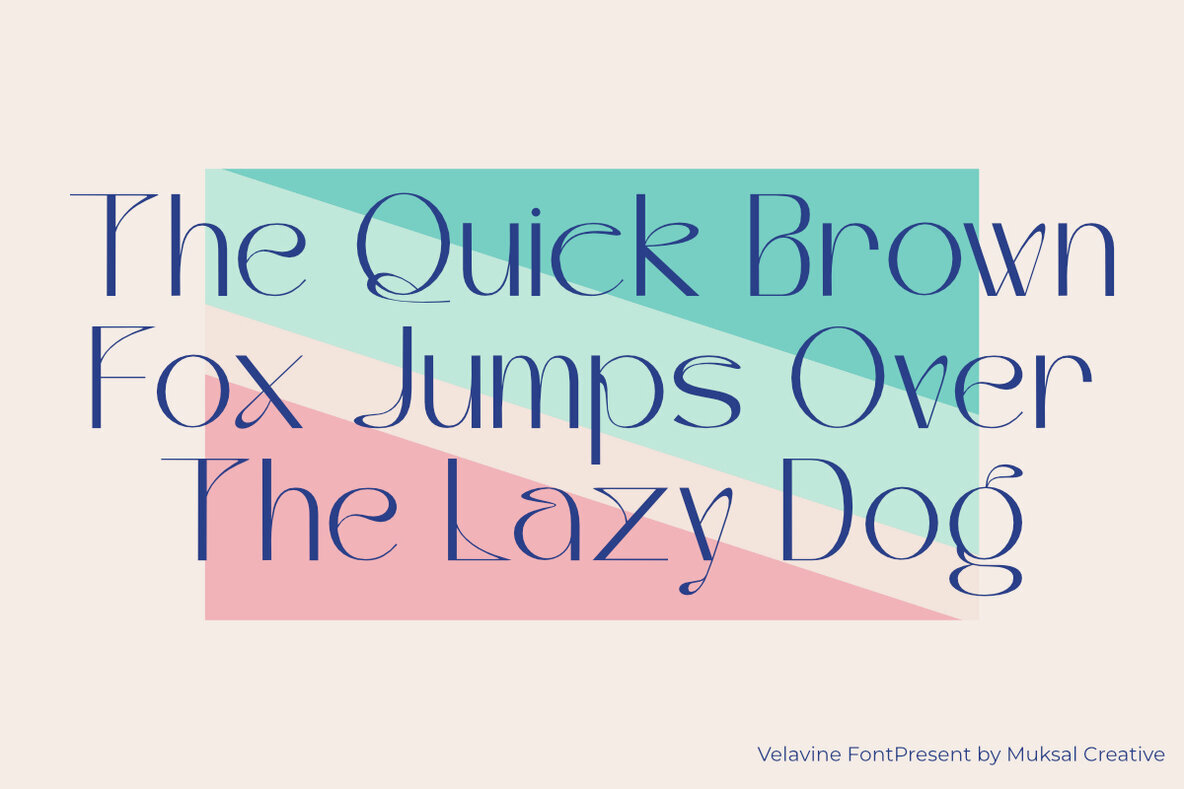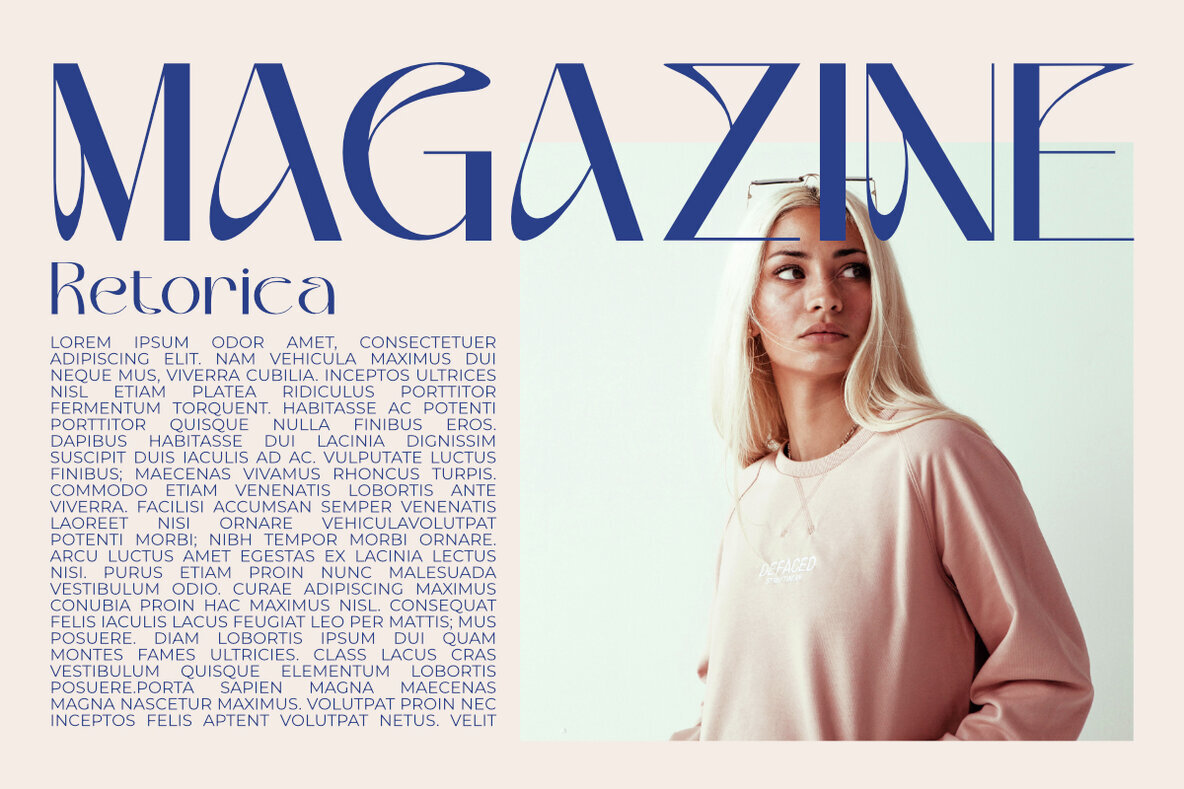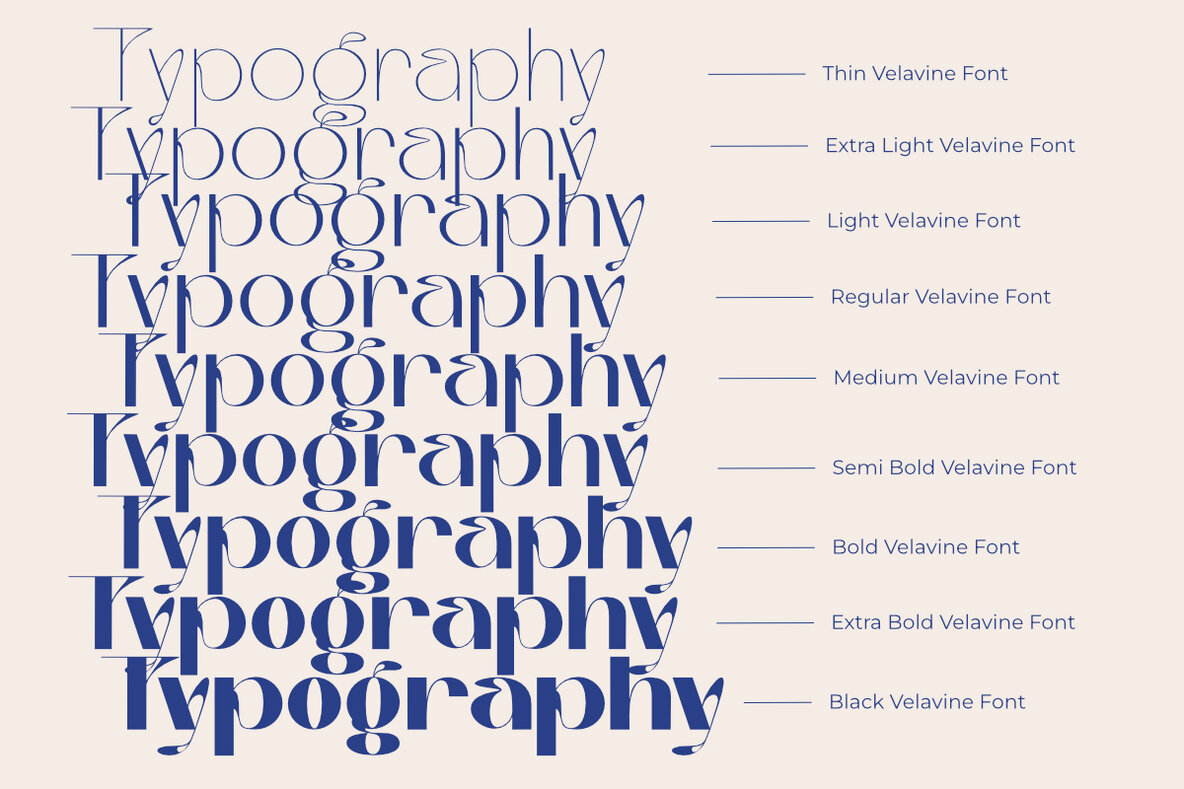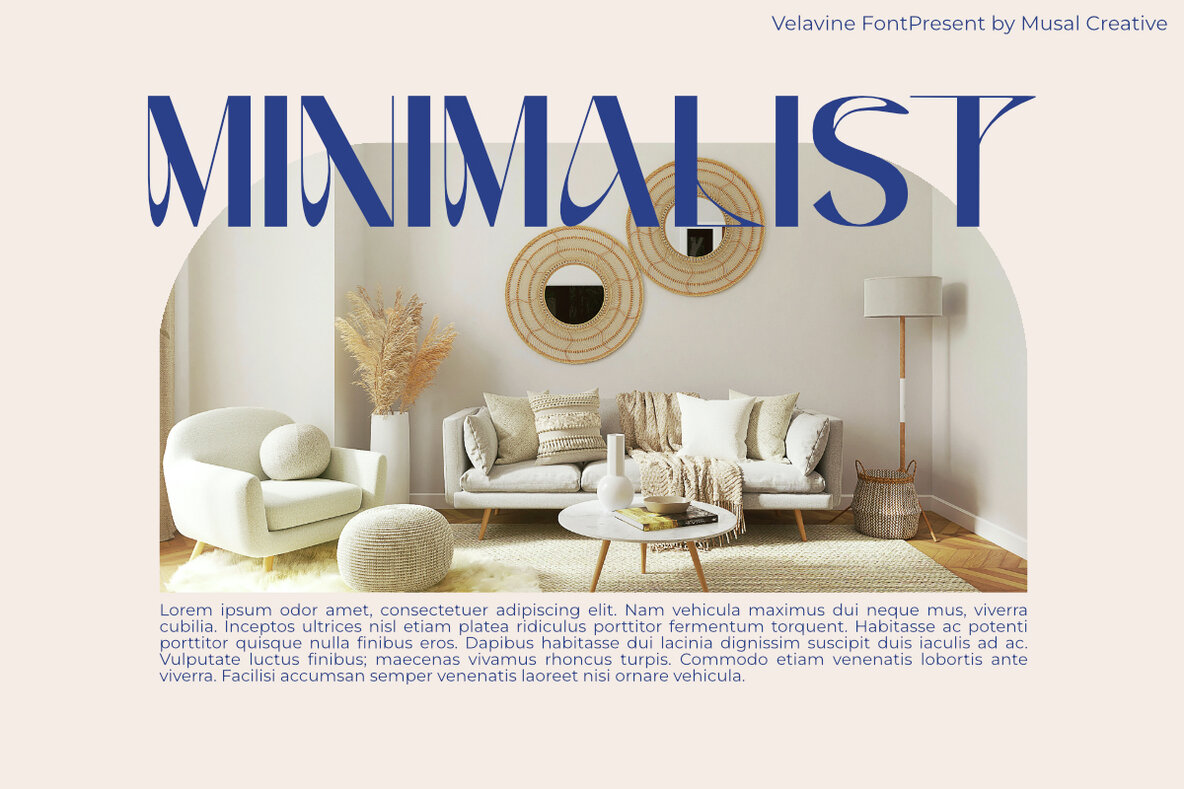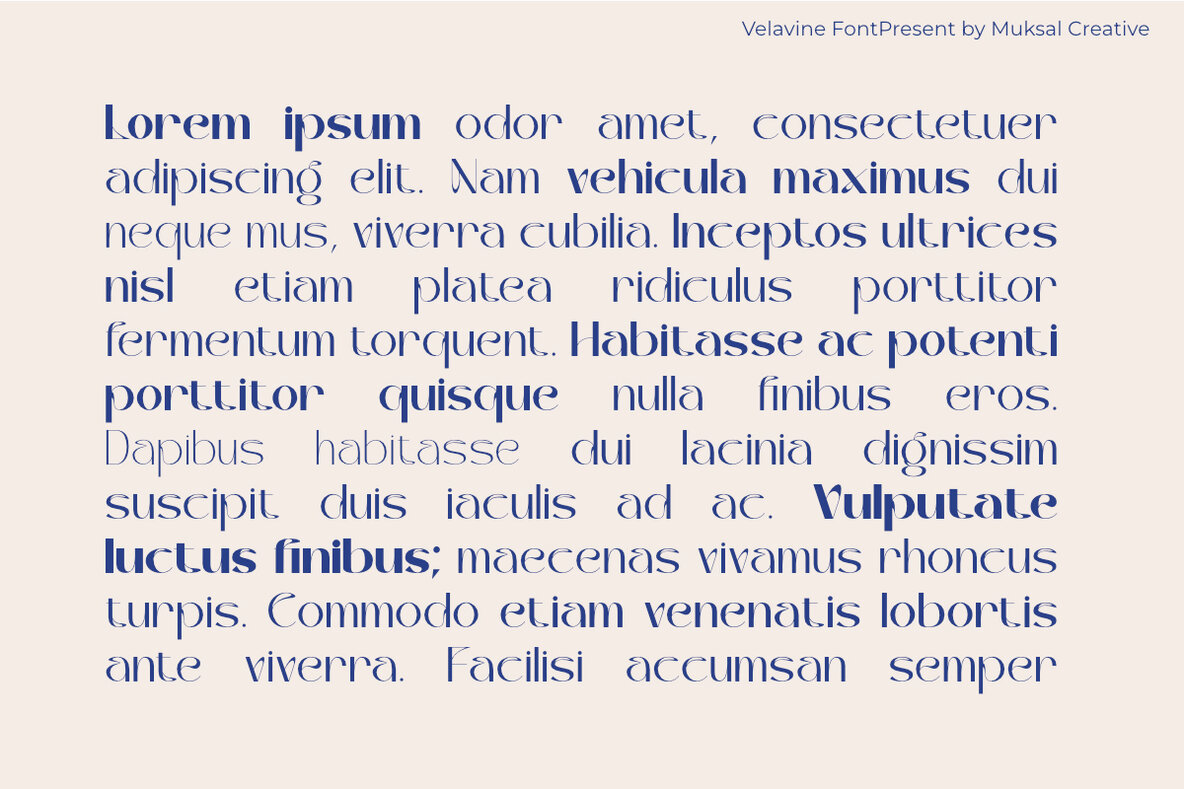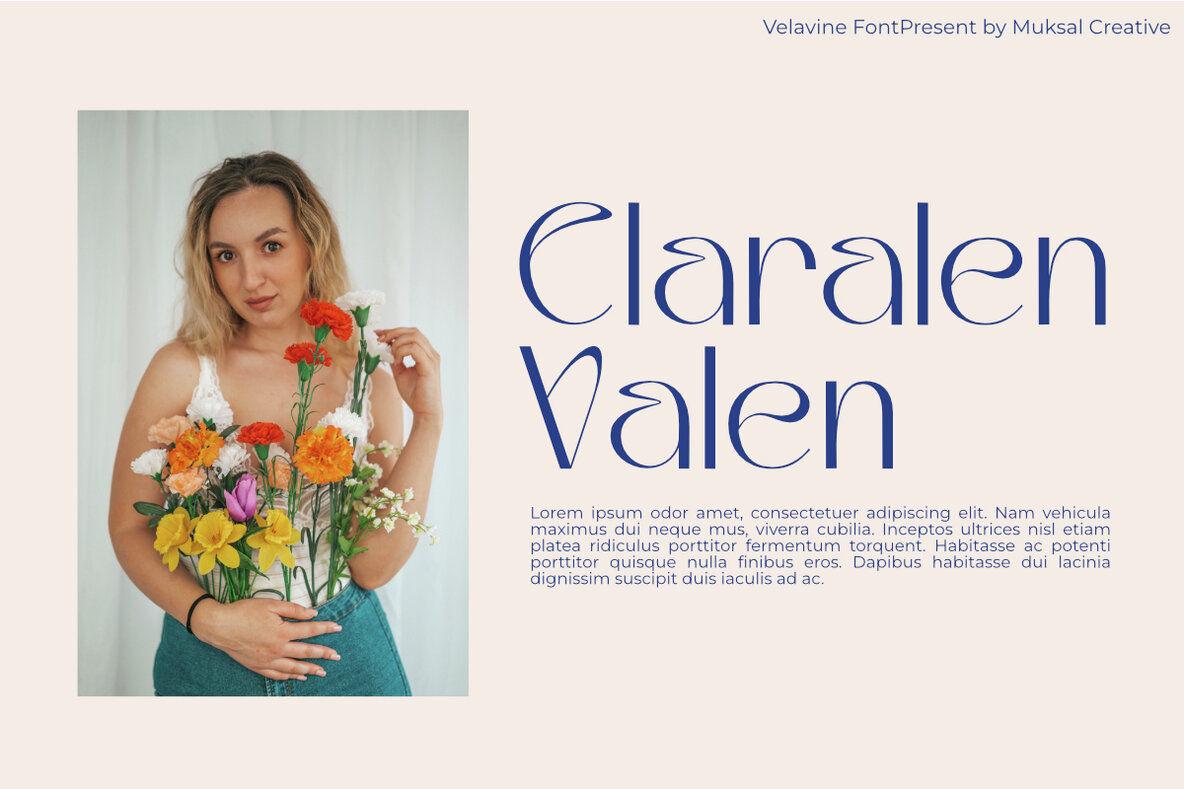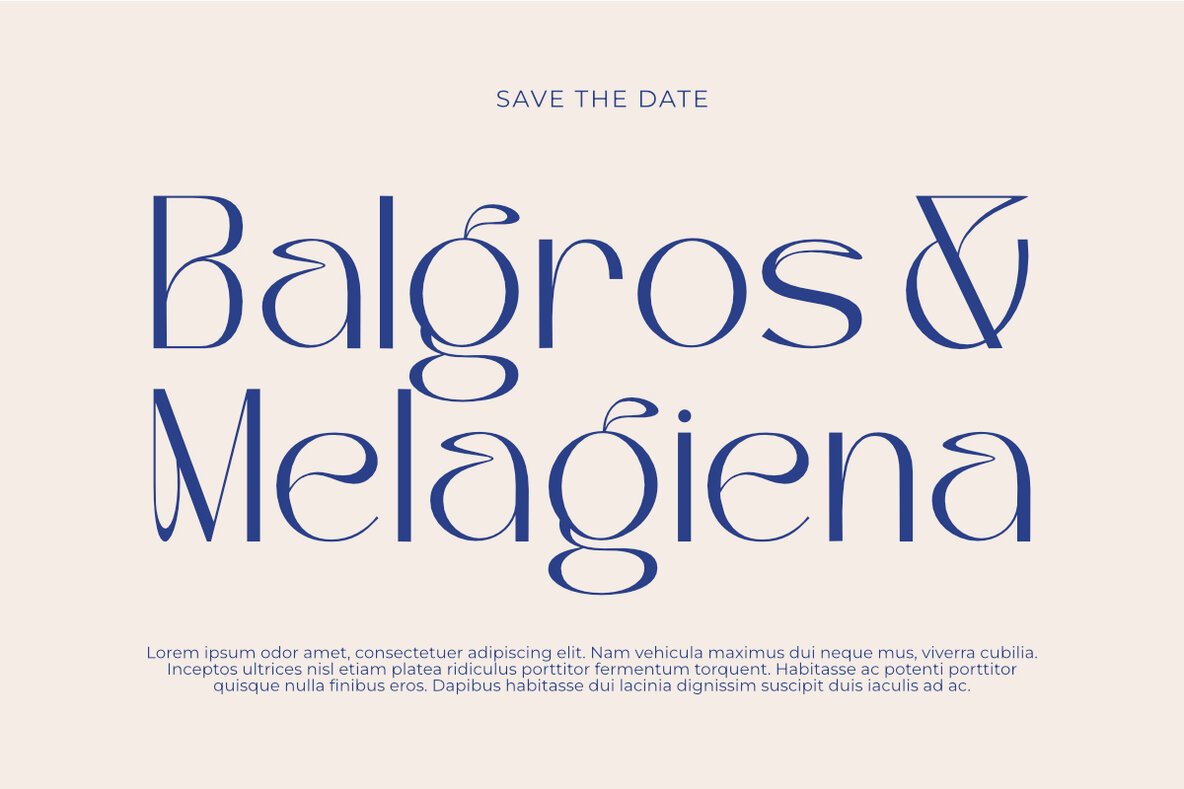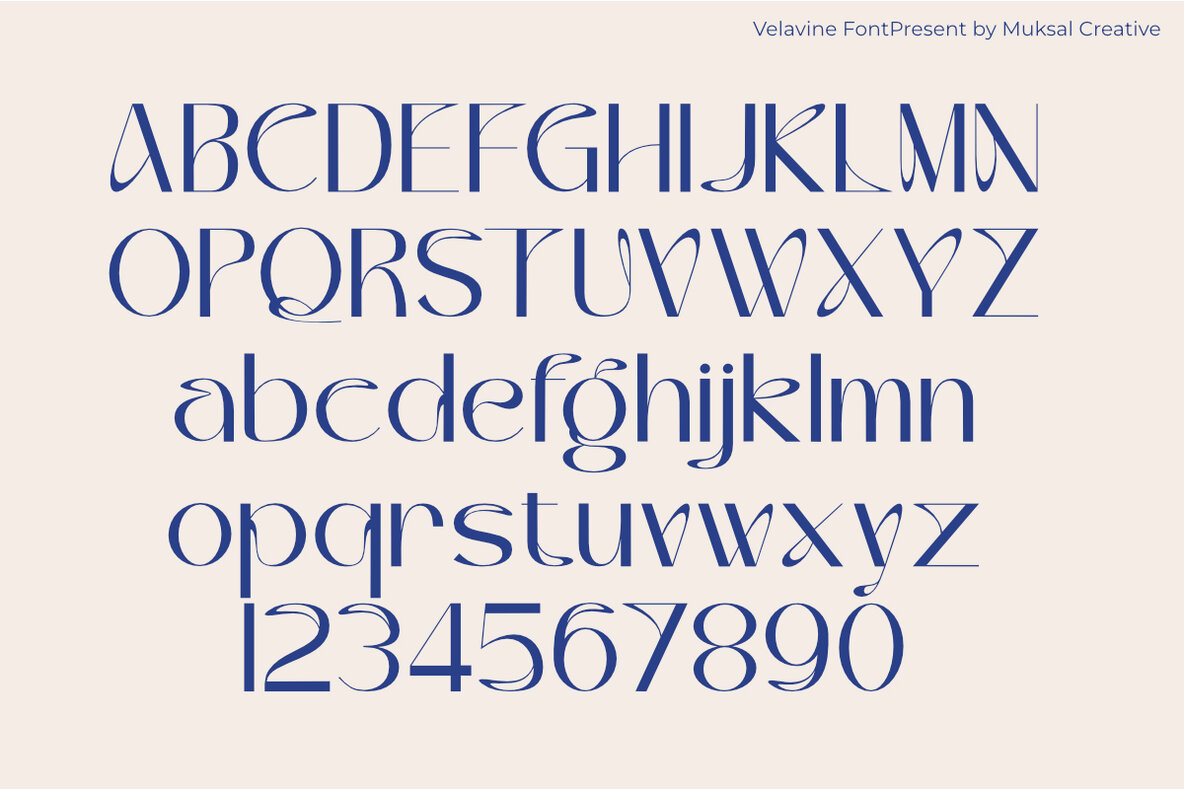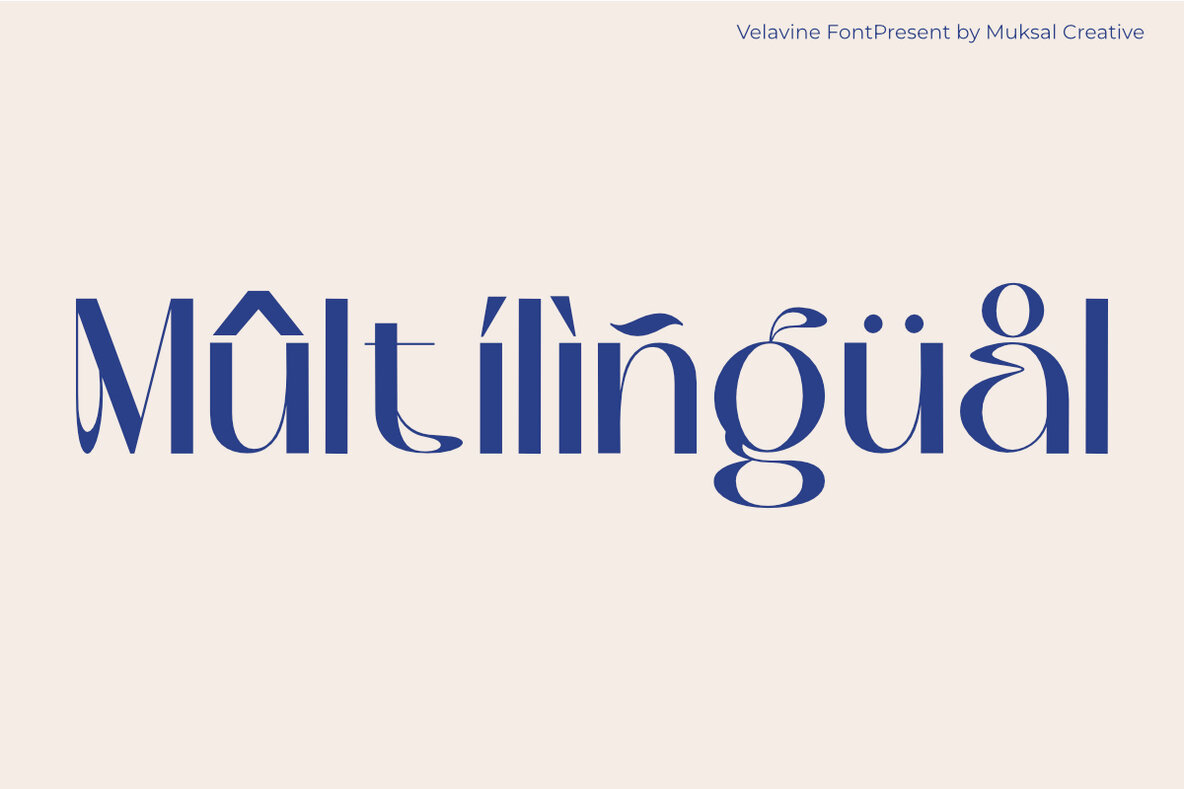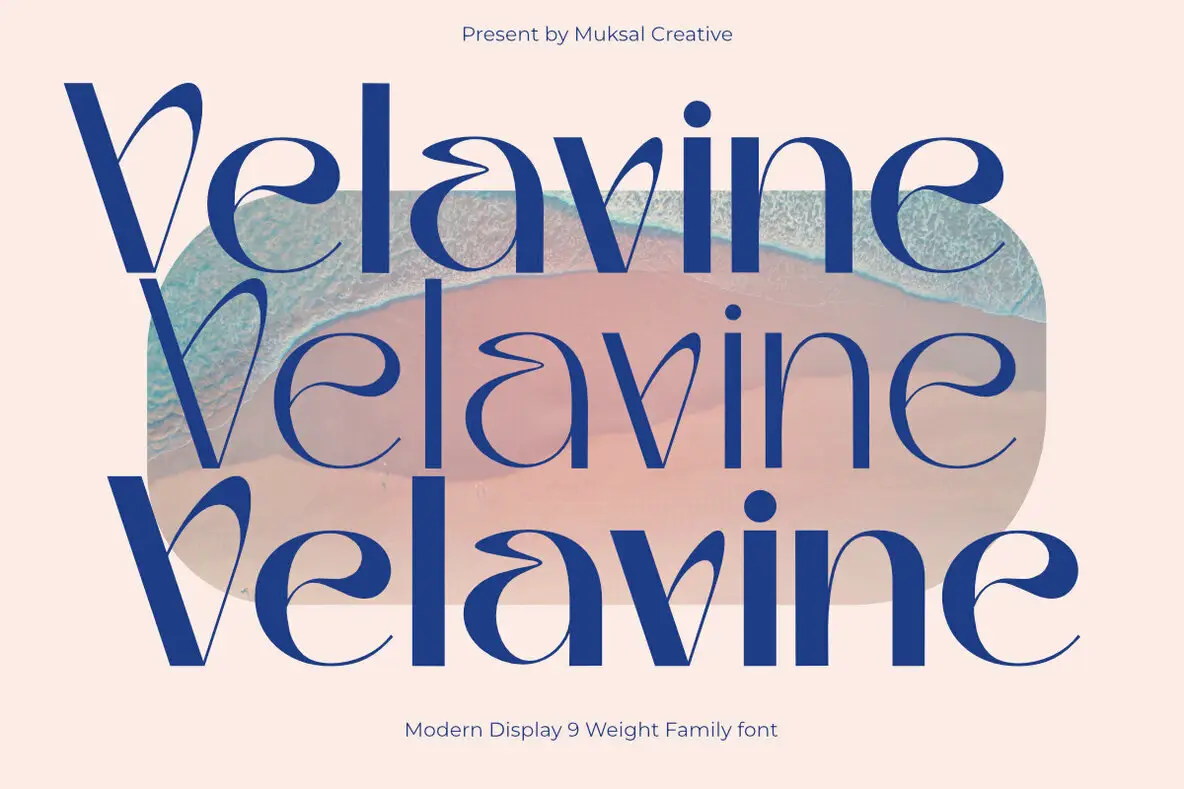
Velavine Font
Velavine is a modern and elegant font family featuring nine distinctive styles, from the ultra-thin Thin to the bold Black. Each style is carefully crafted to deliver both aesthetic appeal and functionality, making it an ideal choice for various design projects. The font’s blend of subtle curves and sharp lines ensures a unique and sophisticated appearance.
Perfect for editorial design, branding, product packaging, and digital media, Velavine imparts a modern, professional touch to any project. Its extensive range allows for high flexibility in creating a strong typographic hierarchy, making style adjustments effortless to meet design needs.
- Lowercase and Uppercase
- Numerals & Punctuation
- Accented Characters
- Multiple Languages Supported